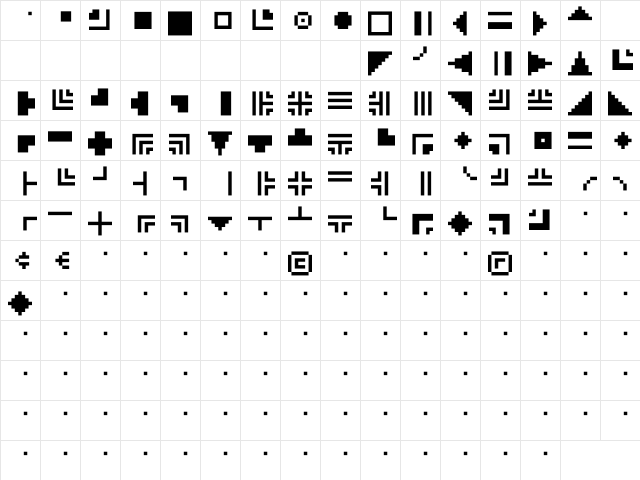
MINI 7 Extras Regular
Design Context for MINI 7 Extras Typeface
MINI 7 Extras offers clean, dependable letterforms without strong stylistic allegiance, making it a practical choice for designers who need flexibility.
Pro Tip: Pair MINI 7 Extras with a font of contrasting weight or personality to build a more expressive typographic hierarchy.